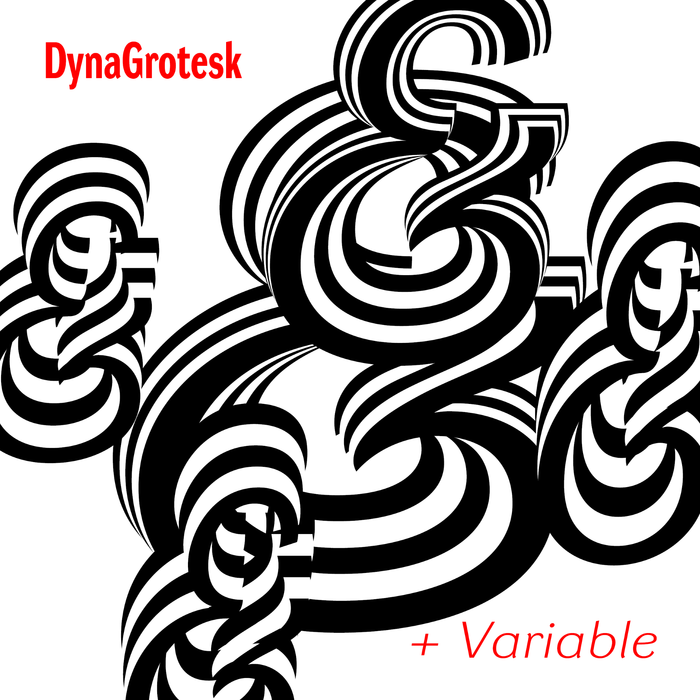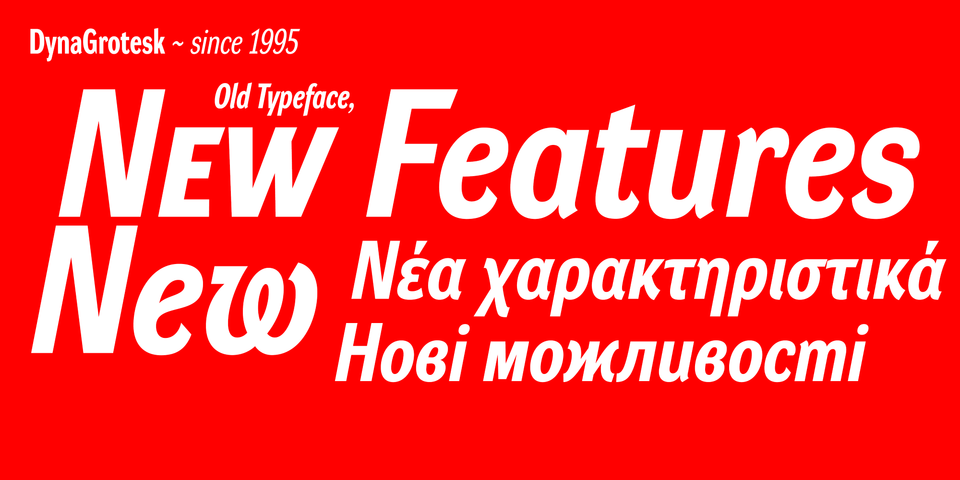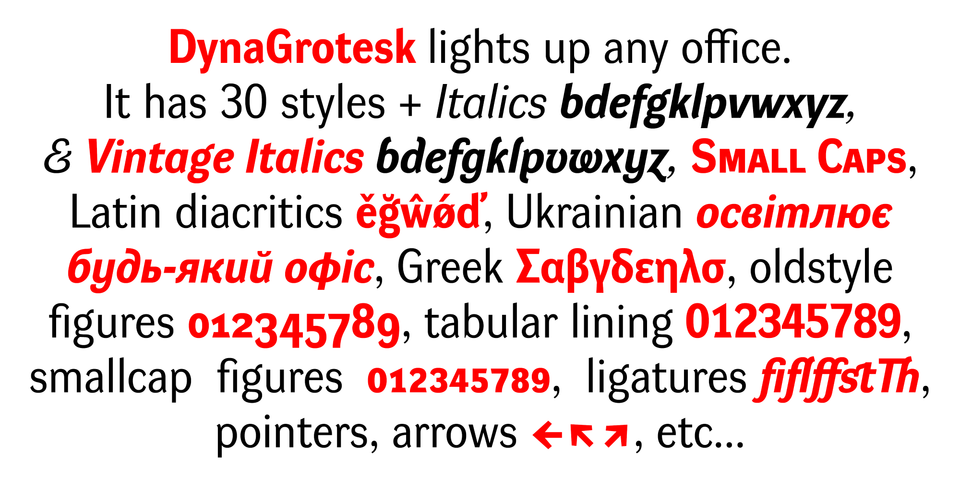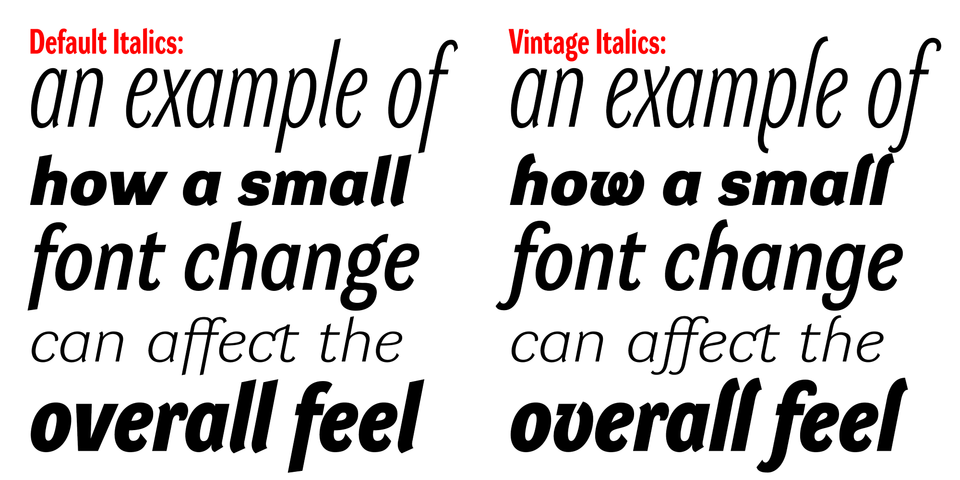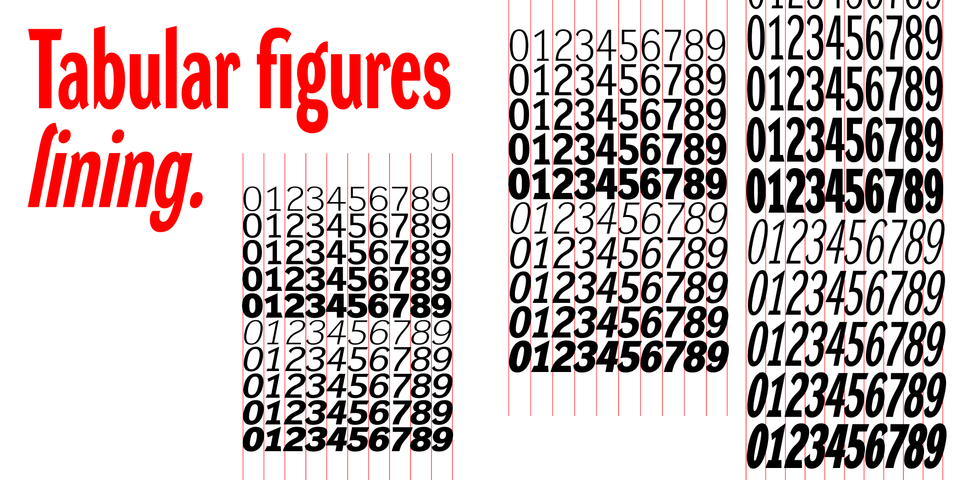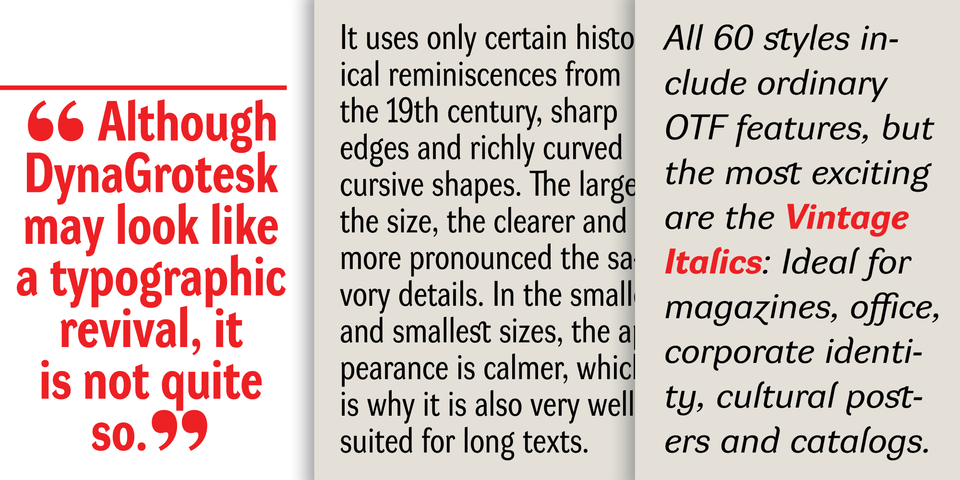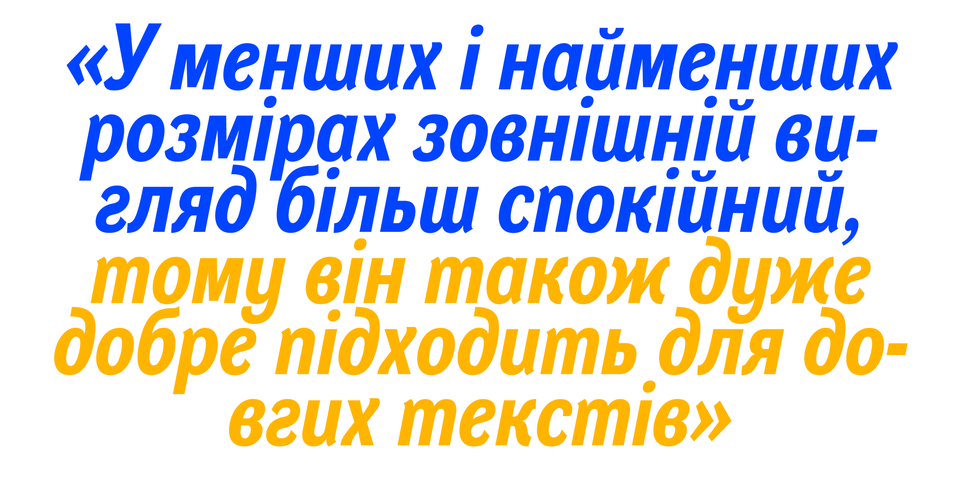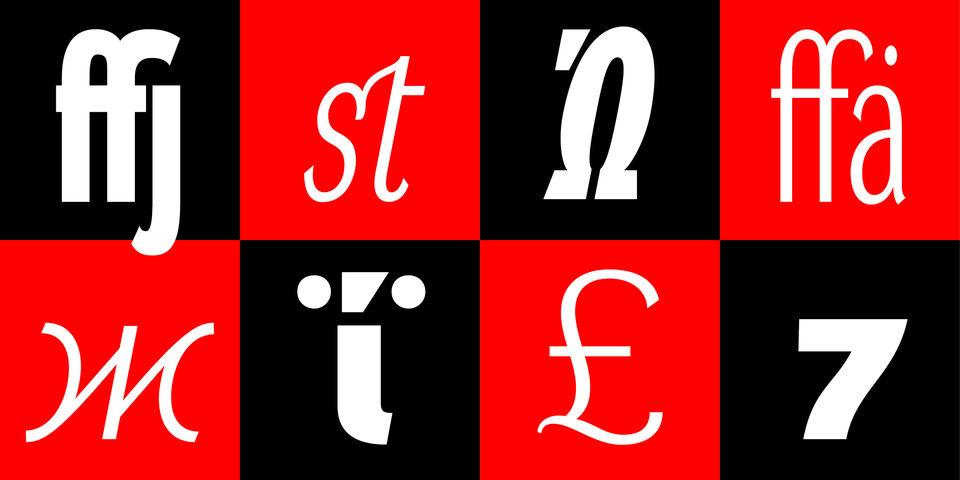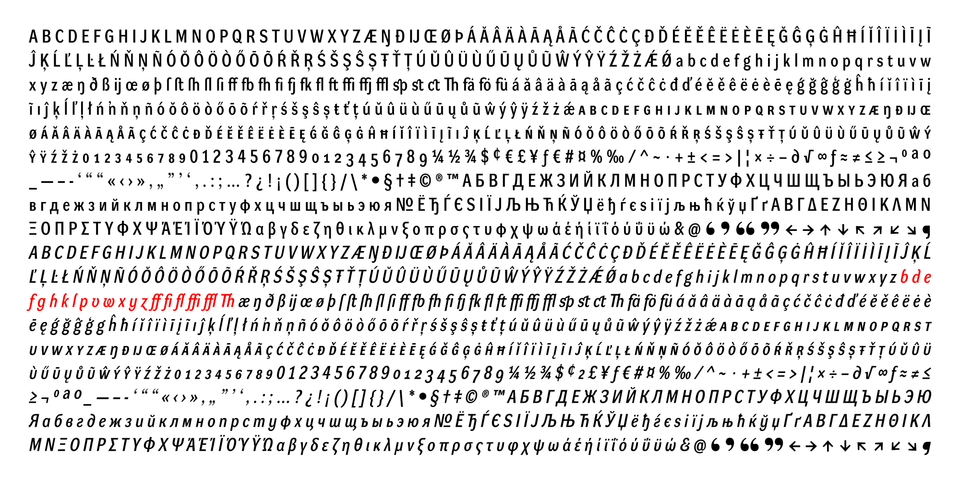
by František Štorm
The most exciting new feature of DynaGotesk is the Vintage Italics stylistic set, which activates the decorative forms. It includes the looped "w", curved ascenders and descenders of many lowercase letters. These can significantly change the feel of a poster or invitation. DynaGrotesk may look like a revival of an old typeface, but it is not. It uses only some historical reminiscences, sharp edges and curved shapes, but it’s completely original design aimed at ease of use. The bigger the size, the more evident and pronounced are the spicy details. In smaller and even smallest sizes it’s appearance is qieter, very well suited even for long portions of text.
DynaGrotesk was created in 1995 with the use of Multiple Master interpolation. But the MM fonts never achieved the desired application in industry, so designers returned back to single fonts. Over the following decades, the font was modified several times as an old house, and the present re-animation includes the Variable font format.
Since its first release in the mid-nineties, it is widely used in all areas of graphic industry from small publishing to international corporate identity. The warm character of DynaGrotesk derives from early sans-serif typefaces, those which appeared before Helvetica. All 60 styles contain common OTF features like Small Caps, various sorts of figures, ligatures, Cyrillics, Greek, and full Latin diacritics. Perfect for branding systems and corporate identities, lettering, as well as cultural posters and catalogs.